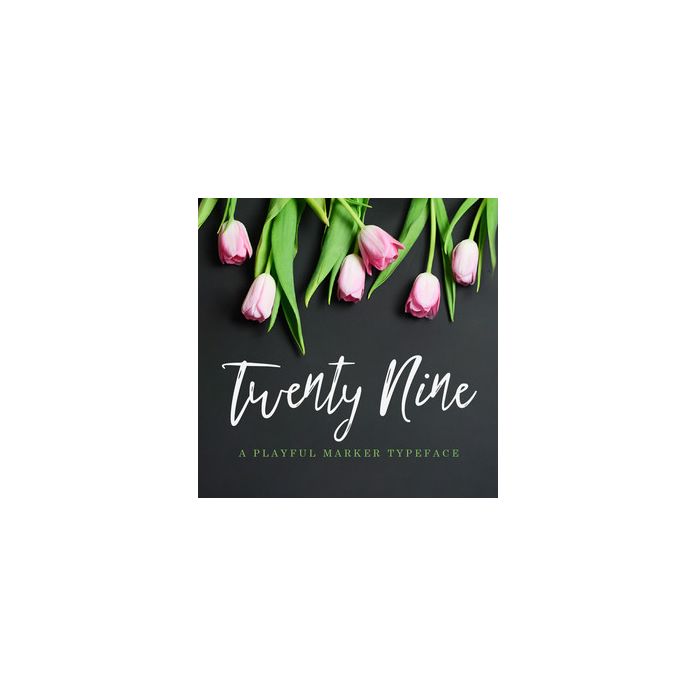
Twenty Nine is a playful and flirty script font with a bouncy baseline. Comes with a full set of capitals, lowercase, numerals, punctuation, and international language support.